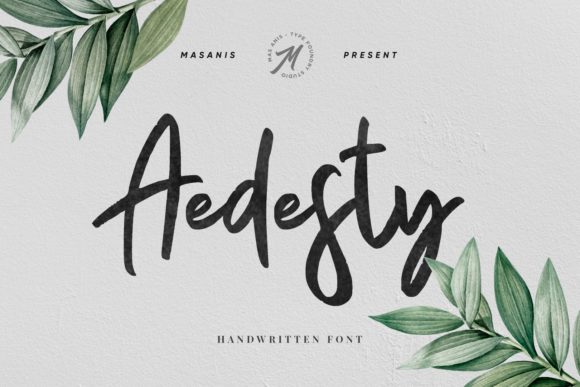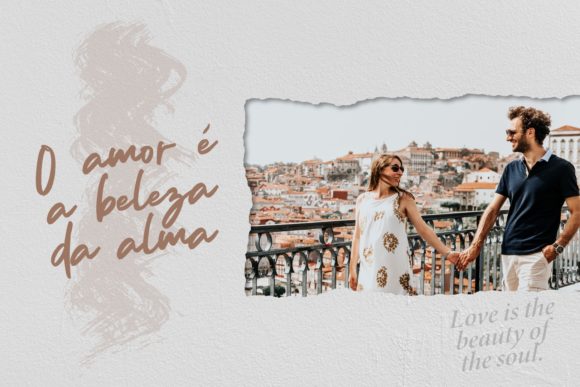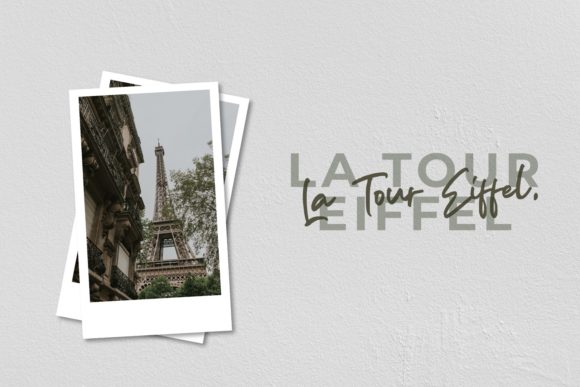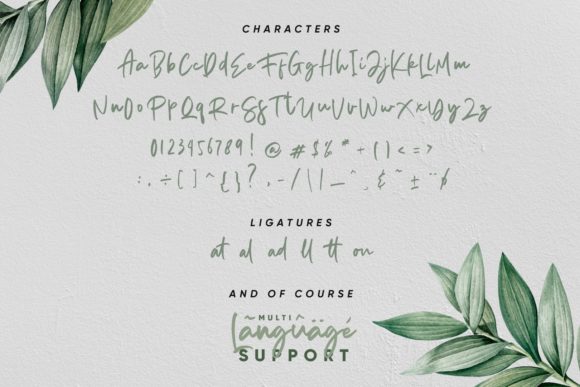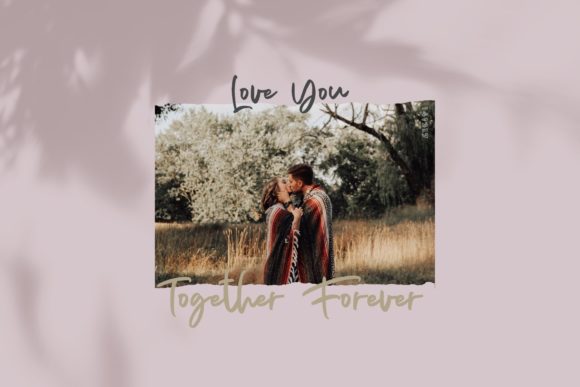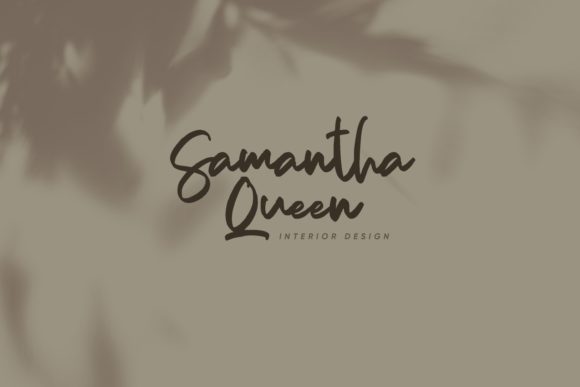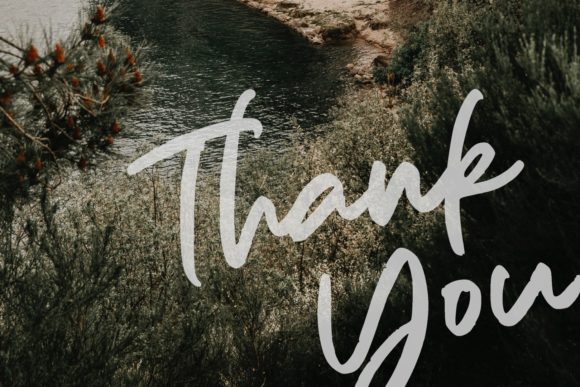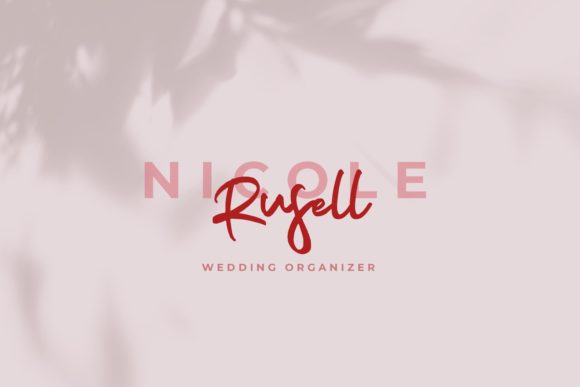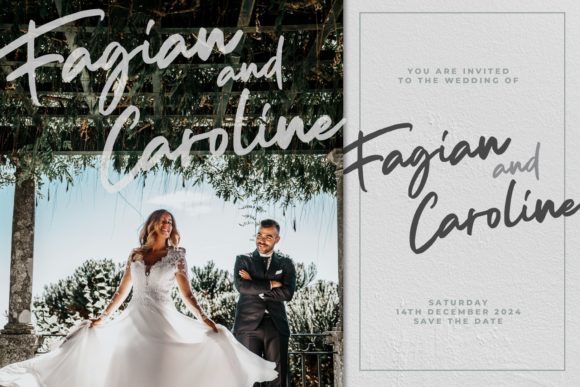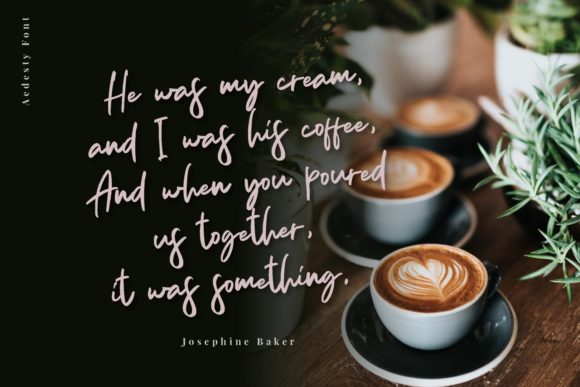
Aedesty Font
About Aedesty Font
Aedesty is a smart and modern handwritten font with a light feel. Use it to add a stunning twist to any design project.